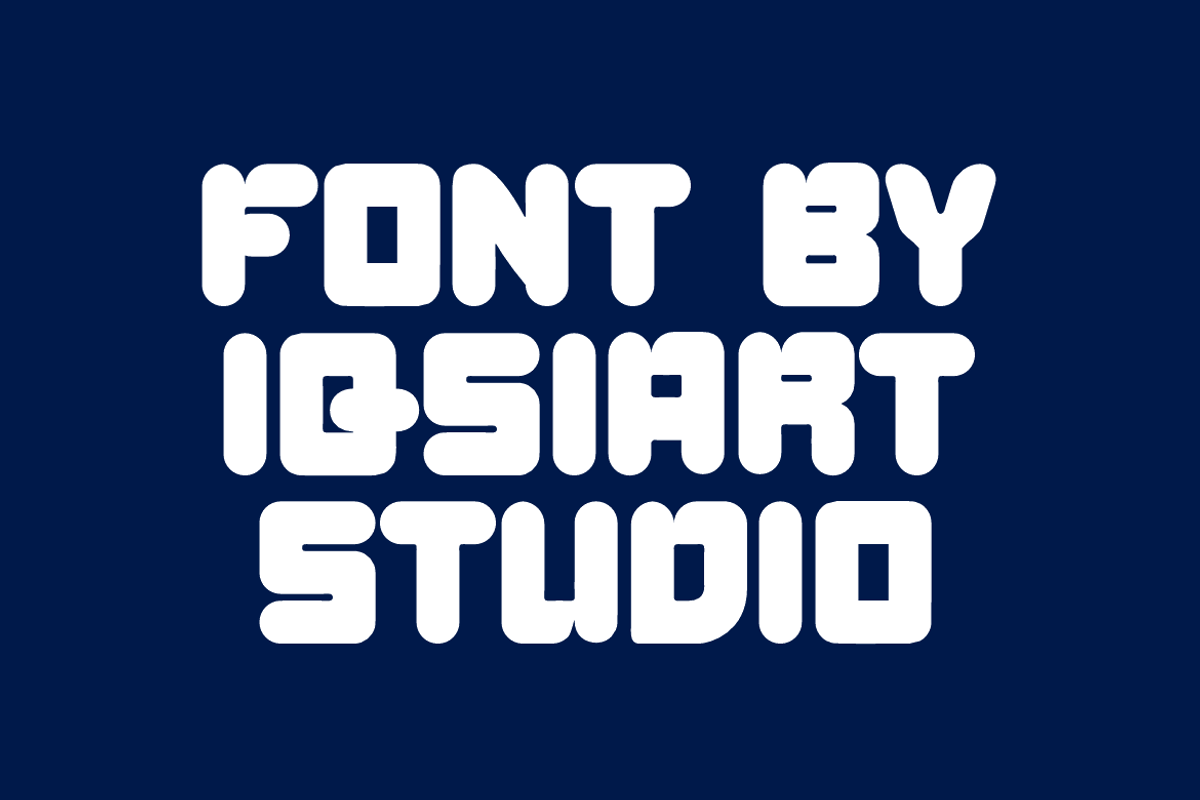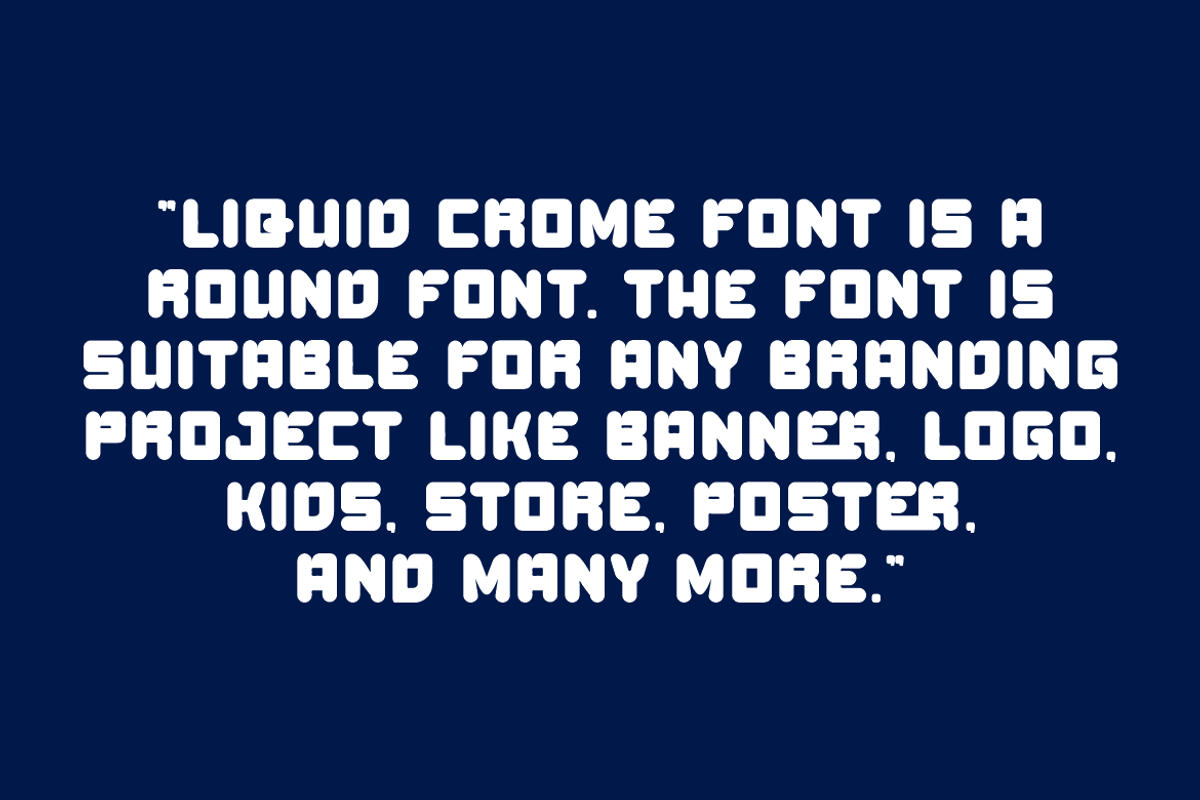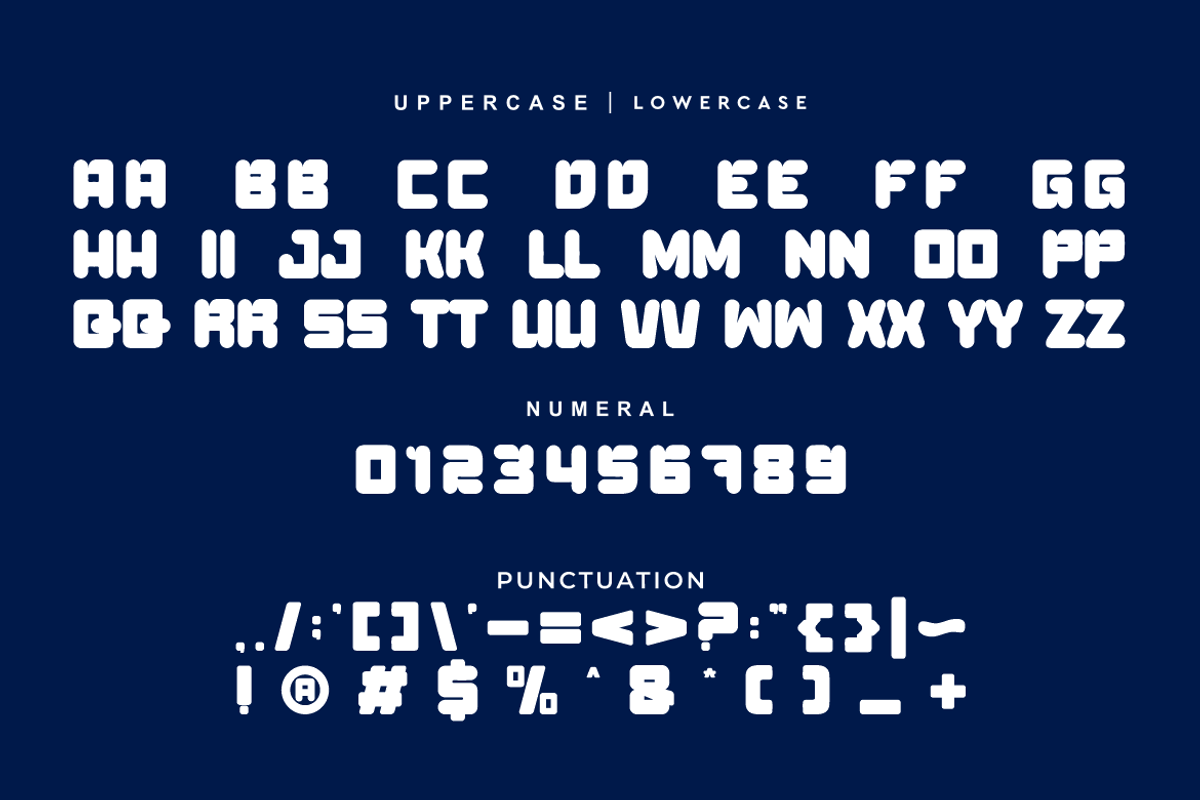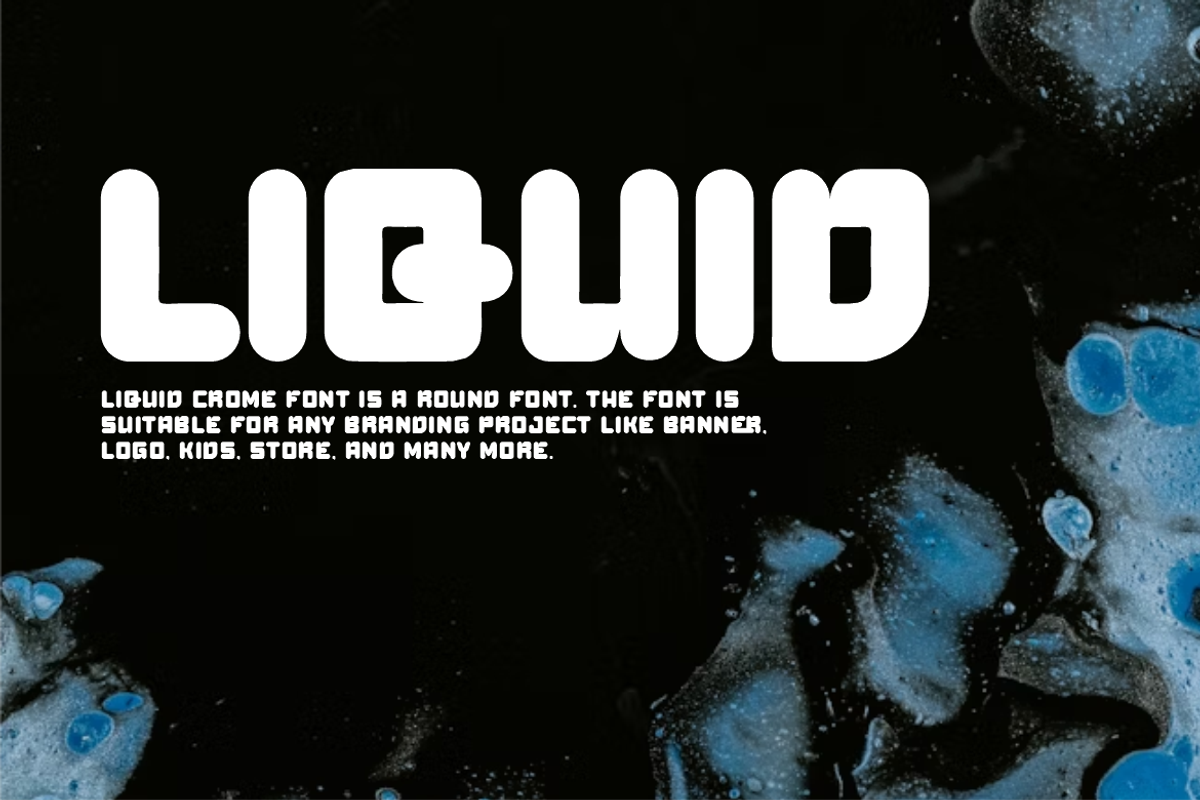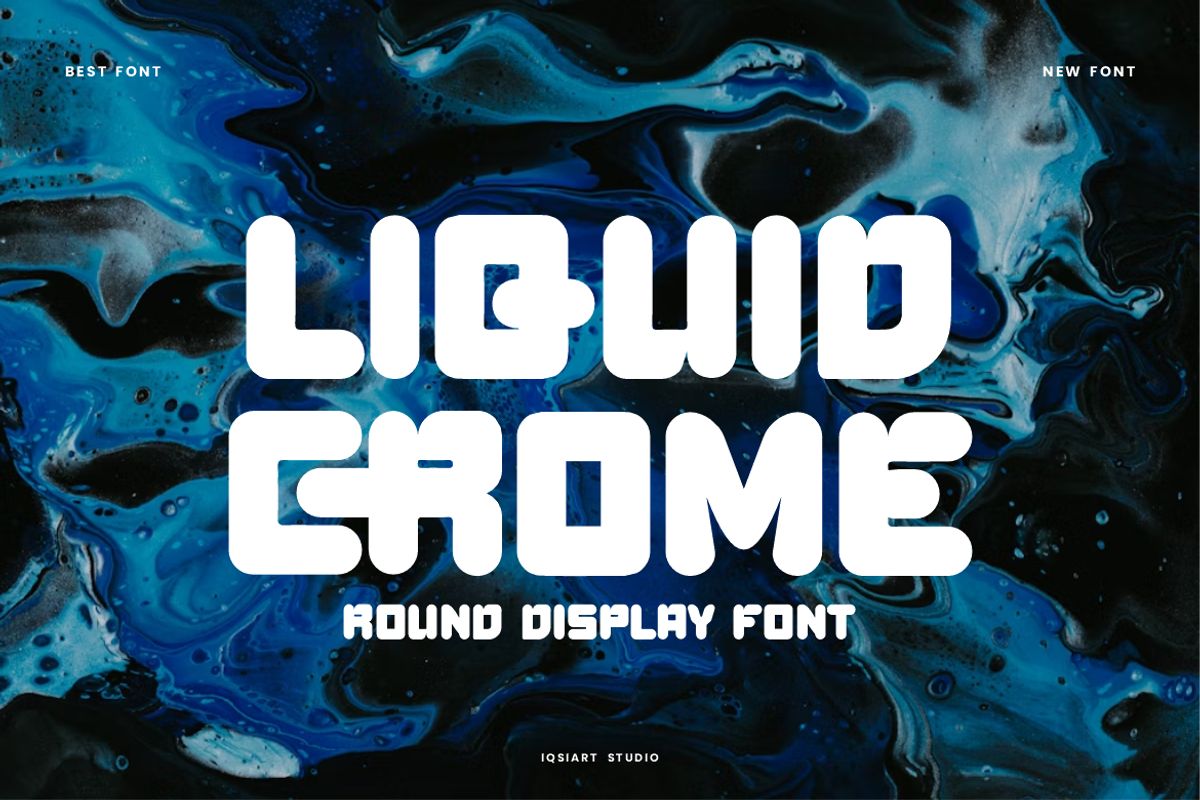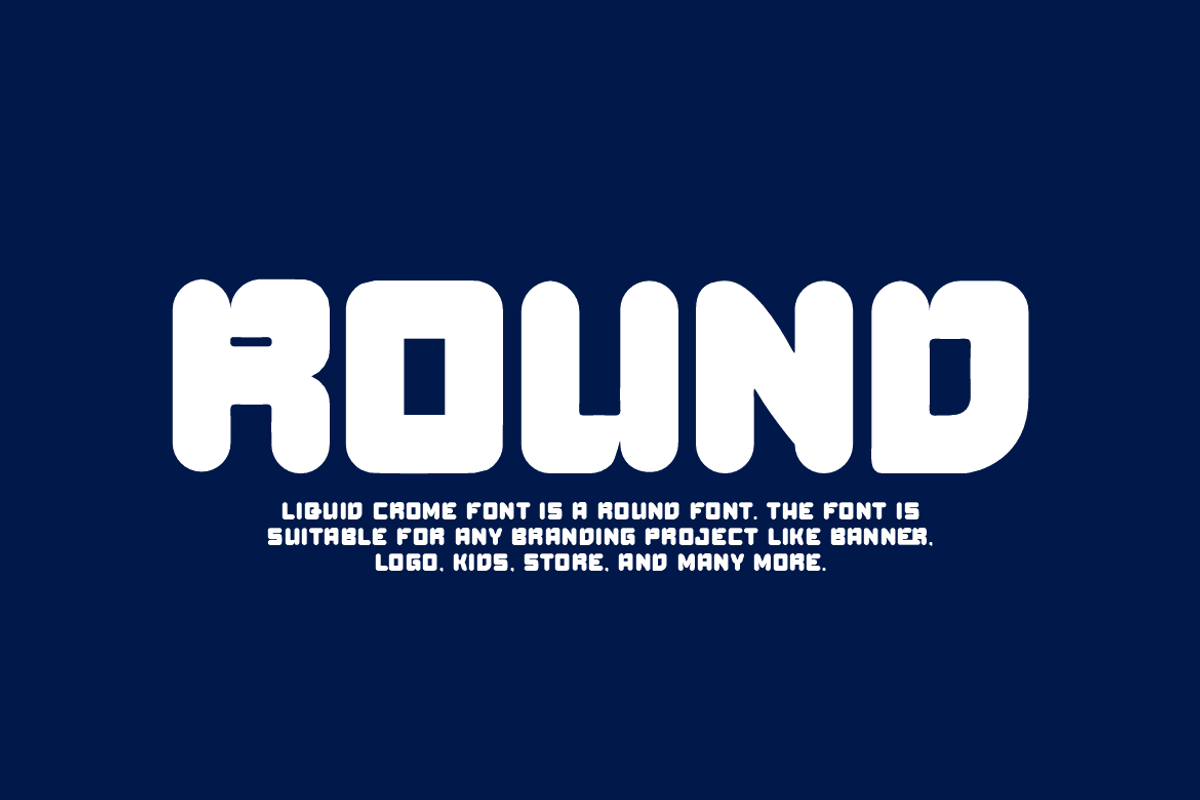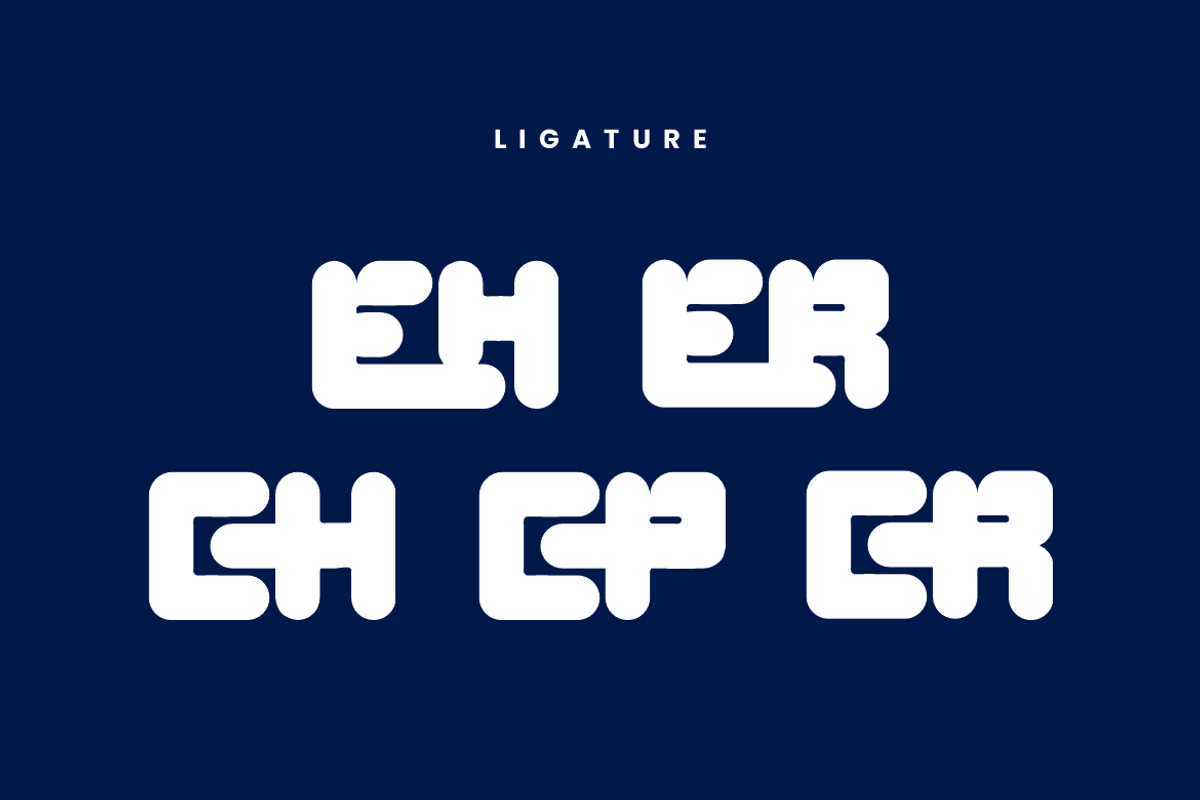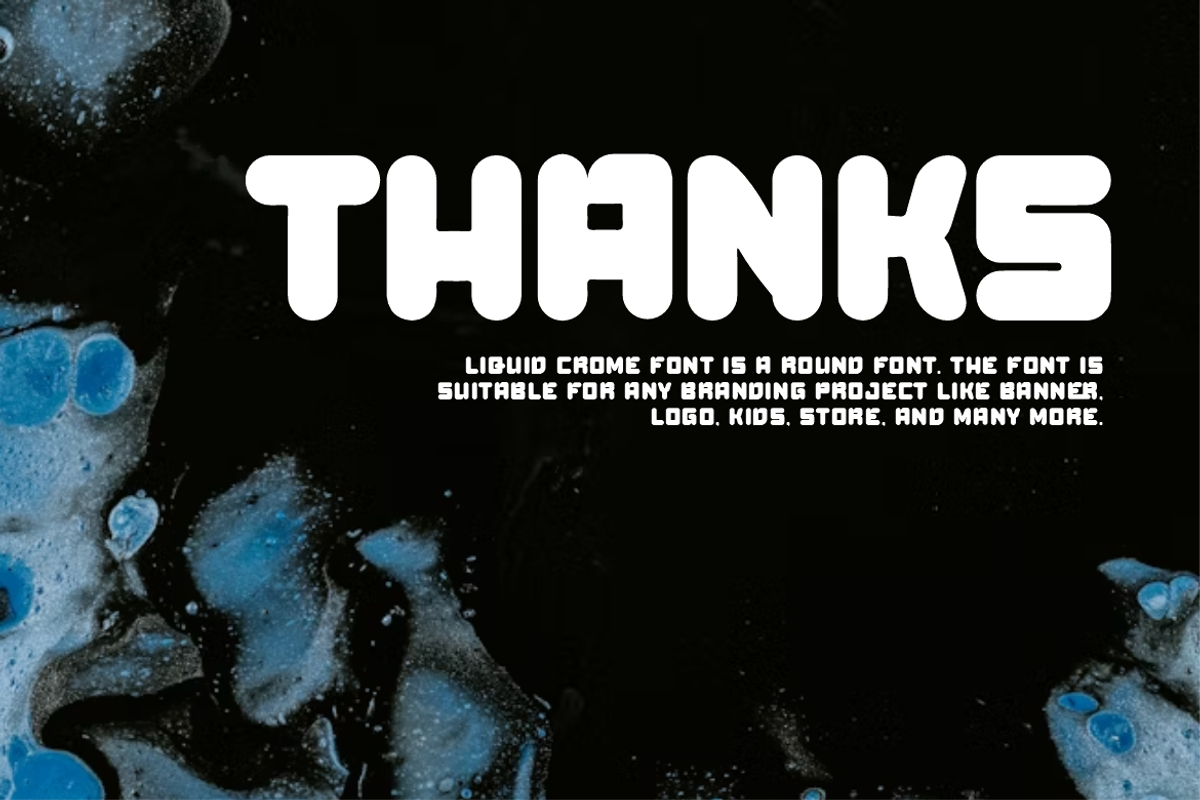
Liquid Crome - Round Font
Liquid Crome Font is a best and authentic display font. This font can be used for your various needs. We provide various themes and font styles. visit our profile to get a wide variety of themes and different font styles you need.